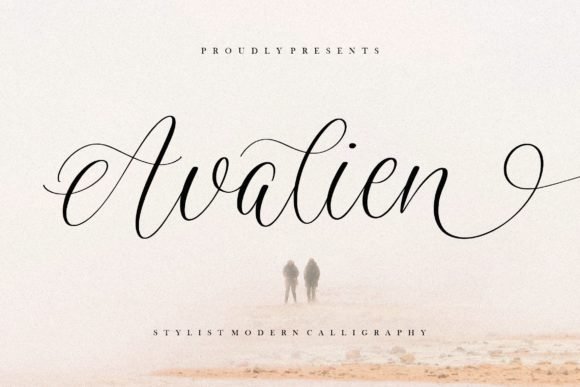
Discovering the Perfect Script: Avalien Font
There’s nothing quite like the rush of excitement when you stumble upon the perfect font for your next design project. It’s the moment when all the pieces fall into place, and your creative vision comes alive. For many designers, this moment is often elusive, but what if we told you that we’ve found a font that’s sure to bring a smile to your face?
Enter Avalien Font, a delicate and stylish handwritten script that’s as beautiful as it is versatile. With its well-balanced characters and elegant flair, Avalien Font is the perfect addition to any design project. Whether you’re working on a wedding invitation, a logo, or a packaging design, this font is sure to add a touch of sophistication and whimsy to your work.
What sets Avalien Font apart is its PUA encoding, which allows designers to access all of the glyphs and swashes with ease. This means that you can unlock the full potential of this font and create truly unique and eye-catching designs that will leave a lasting impression.
Avalien Font Key Features
- Font Family: Avalien Font comes in a single font family, making it easy to use across various projects.
- Font Size: The font is available in a range of sizes, from 8 points to 100 points, catering to various design requirements.
- Resolution: Optimized for high-resolution displays, Avalien Font looks stunning at resolutions up to 300 DPI.
- Unique Characteristics: Avalien Font features a unique blend of modern and vintage elements, making it perfect for creative projects that require a touch of sophistication.
- Character Set: The font includes a wide range of characters, including Latin, Cyrillic, and Greek alphabets, making it suitable for multilingual designs.
Avalien Font Review
Avalien Font is a beautiful, elegant script font that I’ve had the pleasure of working with. ✨ The first thing that caught my attention was its fluidity and organic feel, making it perfect for creative projects that require a touch of sophistication.
The Avalien Font is highly legible, even at smaller font sizes, which is a major plus for designers. ✨ It’s also quite versatile, suitable for a wide range of applications, from headings to body text. I particularly like how it looks in combination with modern sans-serif fonts.
While Avalien Font is an excellent choice for many projects, there are a few limitations to consider:
- ⚠️ Limited language support: The font may not be suitable for projects that require extensive language support, as it’s primarily designed for Latin-based languages.
- ⚠️ Not ideal for small text: While Avalien Font is highly legible, it’s still a script font, and it may not be the best choice for small text sizes, as the letters can become difficult to read.
Overall, I’m impressed with Avalien Font’s unique charm and elegance. It’s a great addition to any designer’s toolkit, and I would definitely recommend it for creative projects that require a touch of sophistication and flair.
Tips for Getting the Most Out of Avalien Font
To get the most out of Avalien Font, consider the following tips:
- Use Avalien Font to create eye-catching titles and headings.
- Combine Avalien Font with other design elements to create a unique and professional look.
- Experiment with different font sizes, colors, and styles to achieve the desired effect.
Common Use Cases for Avalien Font
Avalien Font is commonly used in:
- Graphic design
Alternatives to Avalien Font for Designers
Lato Font is a modern sans-serif typeface designed by Łukasz Dziedzic. It is suitable for use in digital products, magazines, and advertisements. Lato is more geometric and clean compared to Avalien Font, making it ideal for modern and tech-related designs.
What is the recommended font size and line height for optimal readability with the Avalien Font?
For optimal readability, we recommend using a font size between 12 and 18 points, with a line height of at least 1.5 times the font size. This will ensure that the text is clear and easy to read, while also maintaining the font’s unique aesthetic.